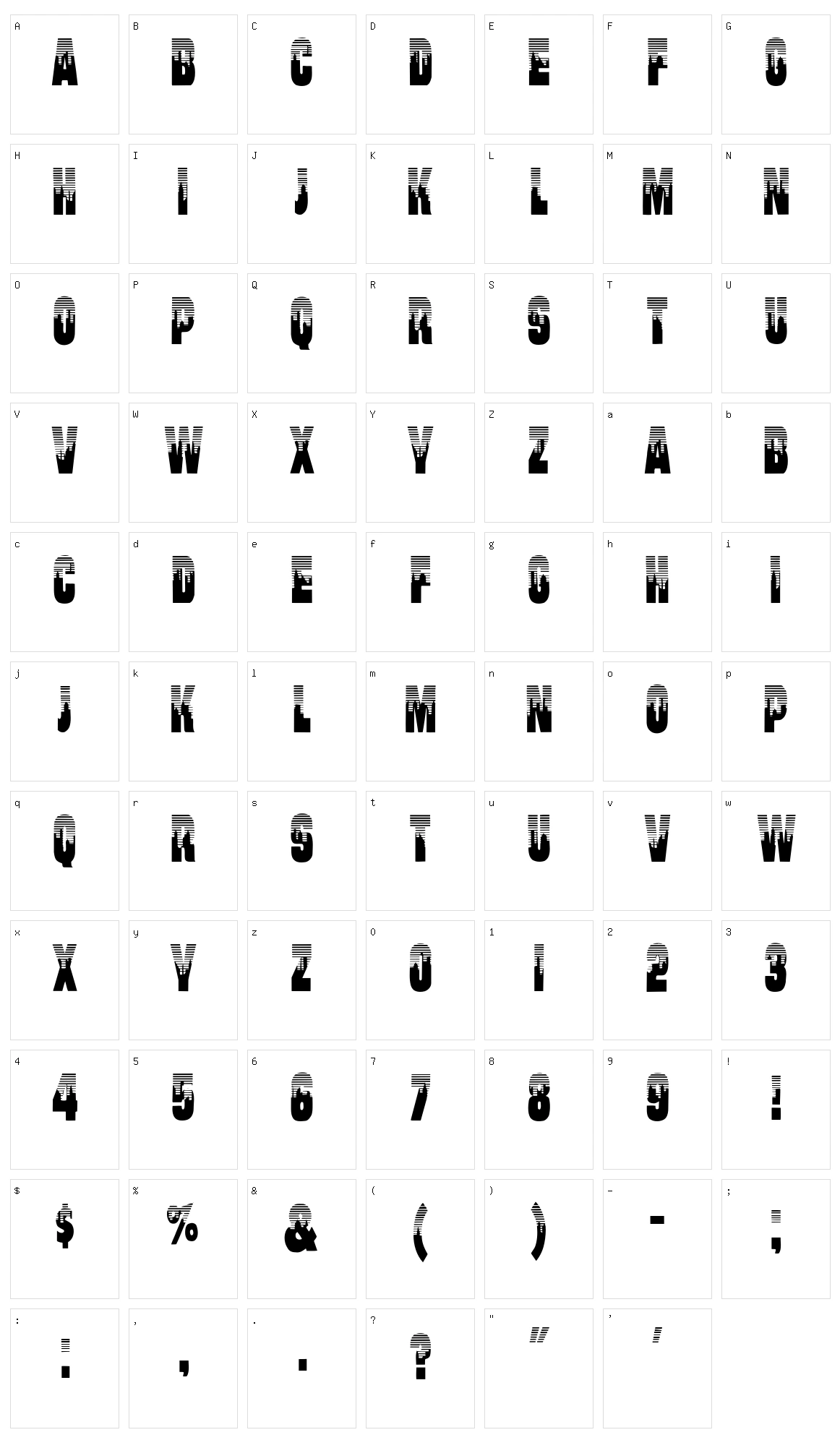
The free font Will-Harris is carefully designed by David Rakowski, showcasing a thoughtful balance of creativity and usability and falls under the Decorative font style. When you download the ZIP file, it contains only 67.46 KB of font files, making it lightweight and quick to download. Please review the license details below to understand permitted usage and distribution rights. If license information is not available, we recommend using this font for personal projects only or contacting the author directly for commercial usage permissions.